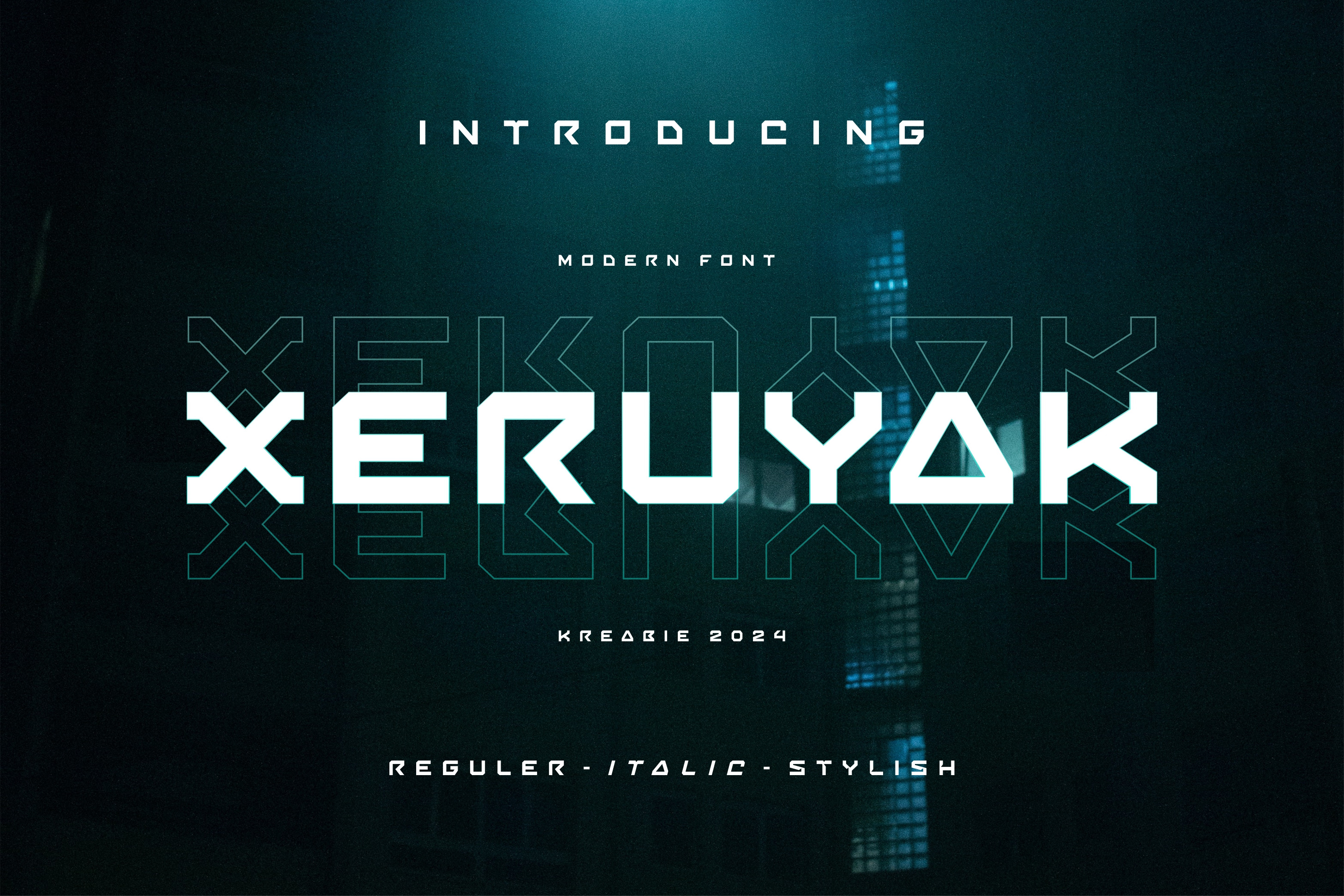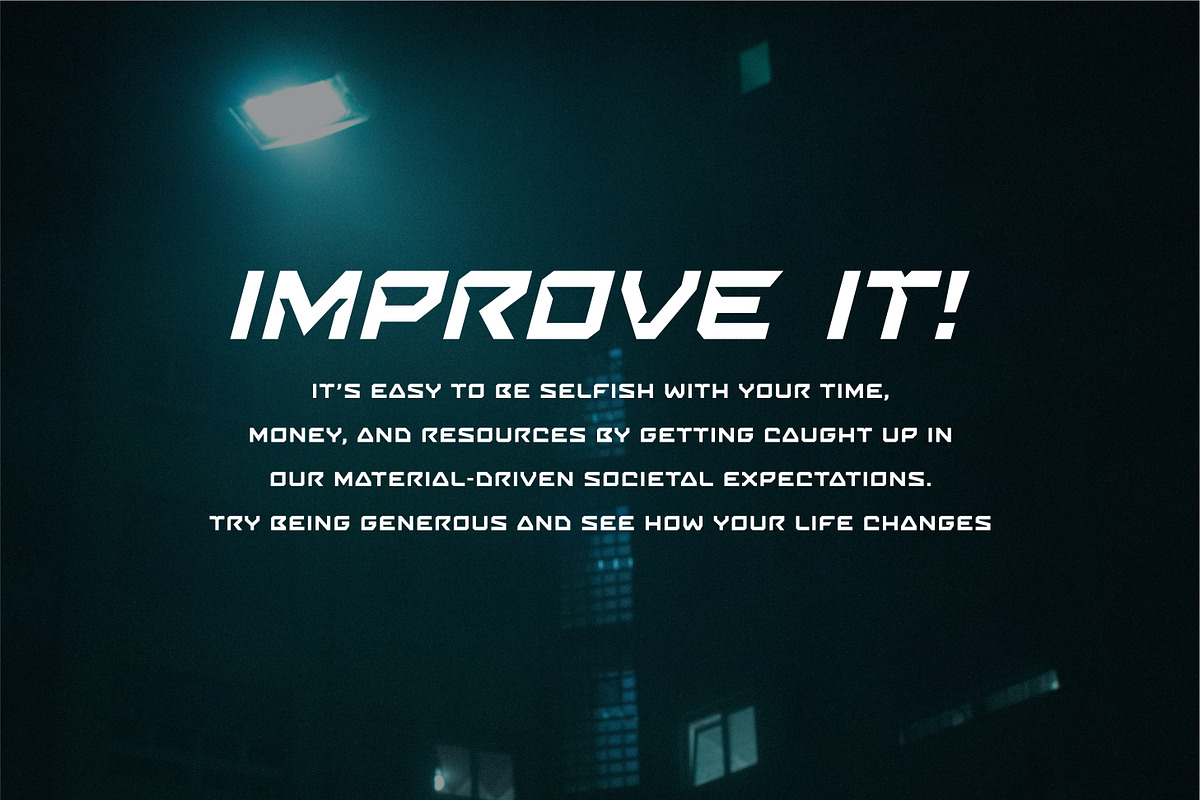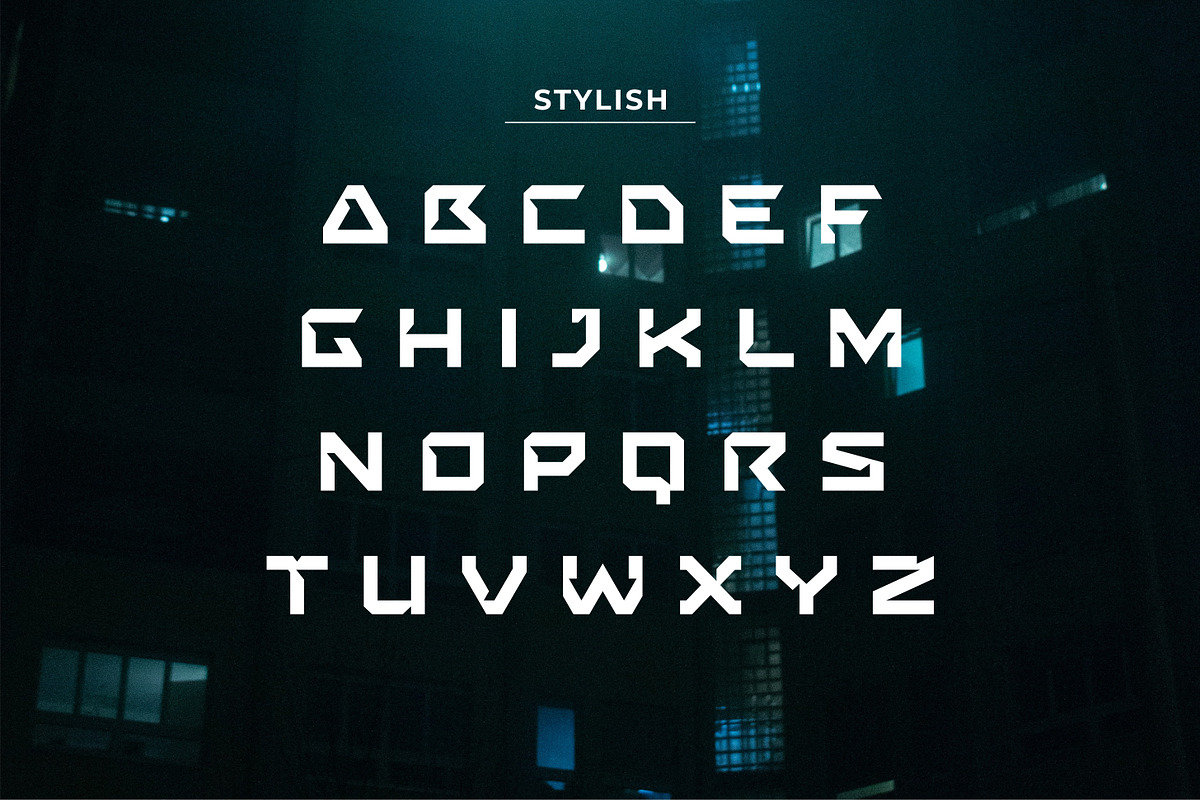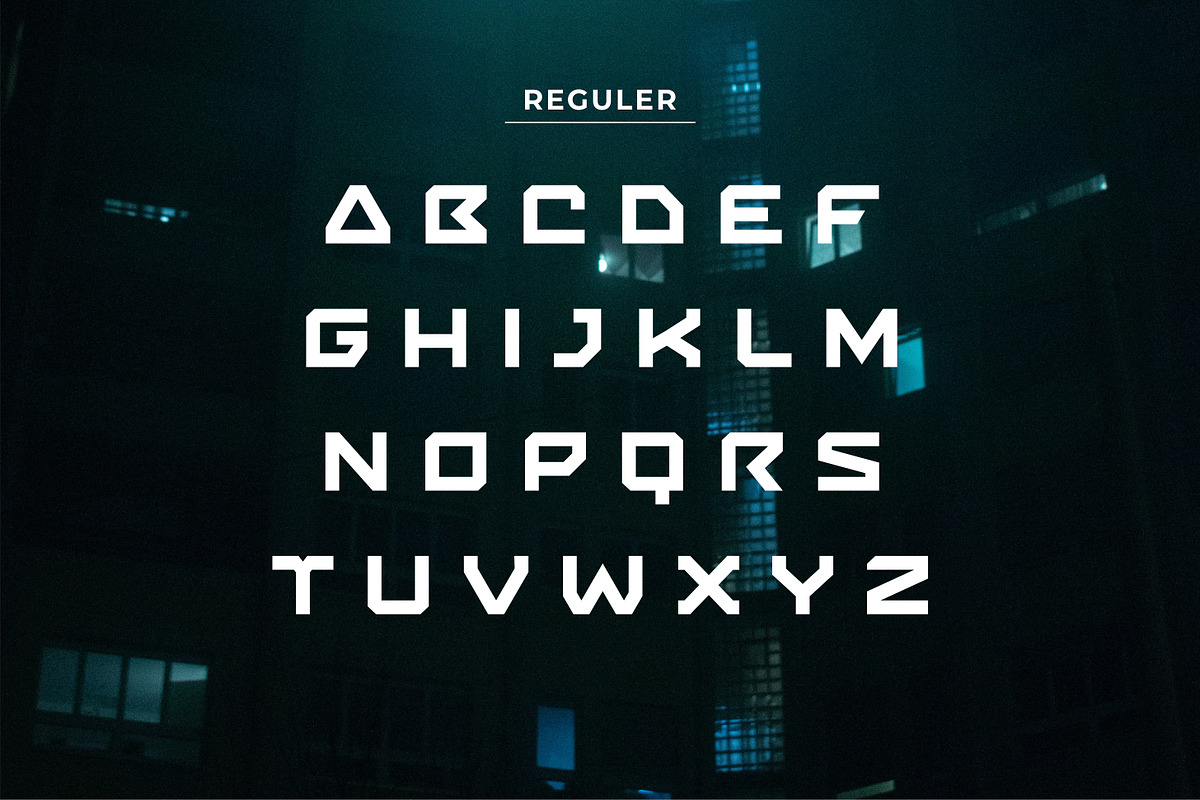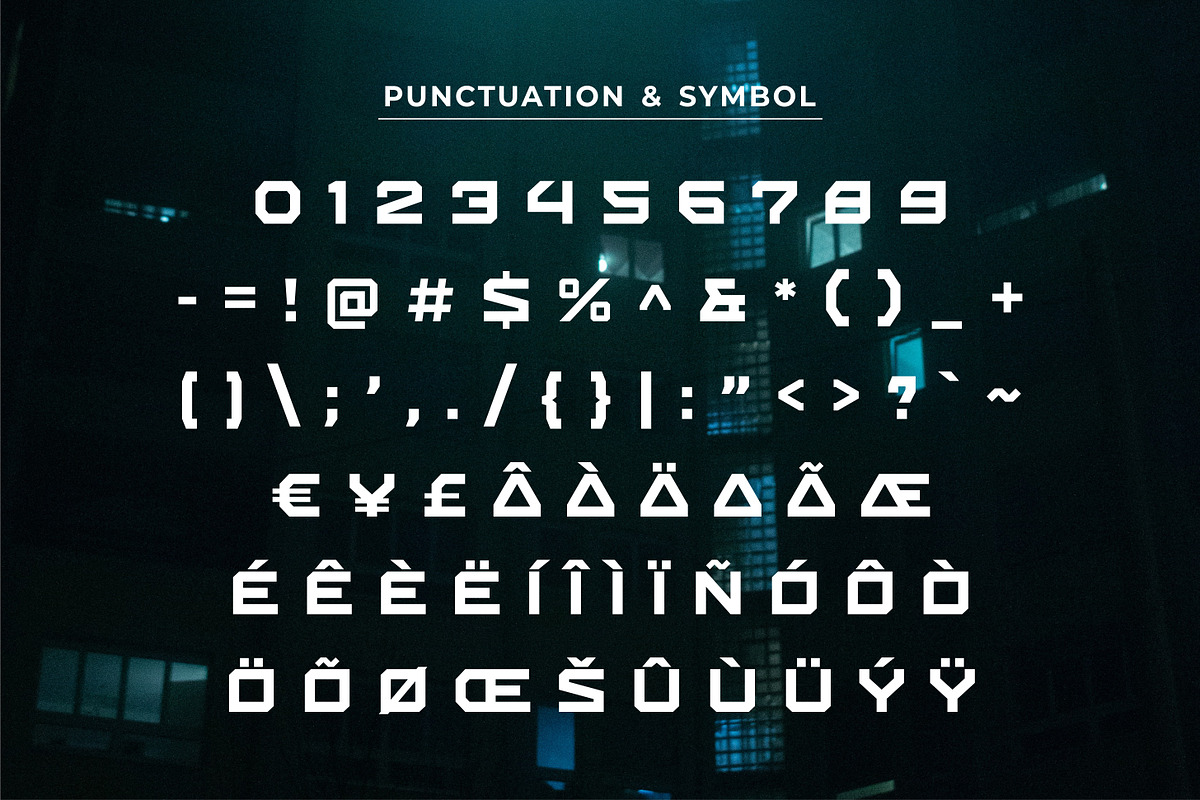
XERUYAK FONT
XERUYAK font. XERUYAK Its unique style makes it stand out from other fonts, making it perfect for anyone who wants to make a statement.,The font is suitable to use for many occasion such as game, fashion, science music, movie title, brand, technology, space and many more.
- 3 Style : Reguler, Italic & Stylish
- Basic Latin A-Z
- Punctuation & Symbol